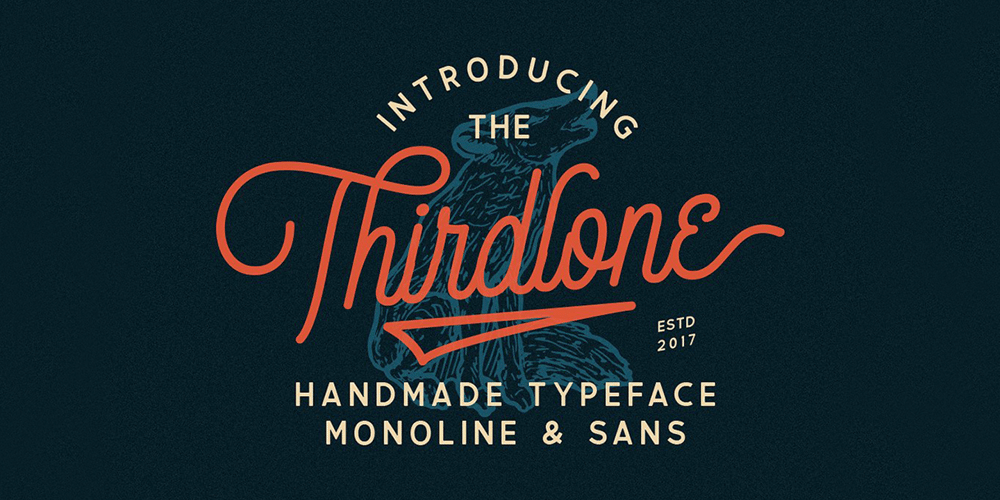
Thirdlone Font Family was designed by Hendry Juanda and published by Letterhend. Thirdlone contains 7 styles and family package options. Thirdlone is a handmade typeface with monoline script and sans. This font is perfect to be used as t-shirt designs, logo/brands, signatures, headlines, lettering quotes, and more. It also comes in uppercase, lowercase, punctuation, symbols, numerals, stylistic set alternate, ligatures, and multi-lingual support.Thirdlone Script includes 3 different styles: Regular, Stamp, and Ink.Thirdlone Sans includes 4 different styles: Regular, Stamp, Ink, and Edge. Regular styles are a regular style that have clean look on it.Stamp styles give you aged texture on the font that will push out the vintage feel. Ink styles will give the font a little bit of an ink feel. The Edge style give this font a rough feel on its edge. You can choose one of the styles mentioned above that match perfectly for your style, or just mix and match it.